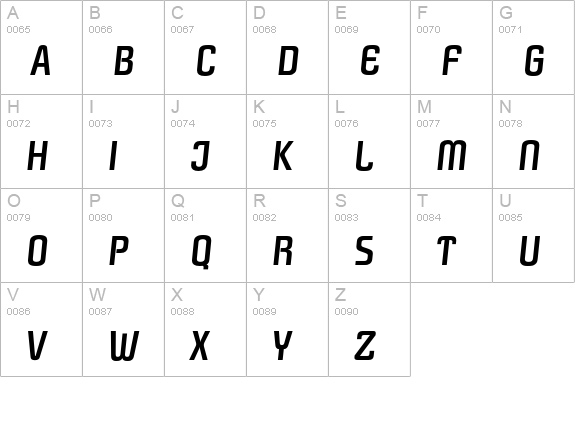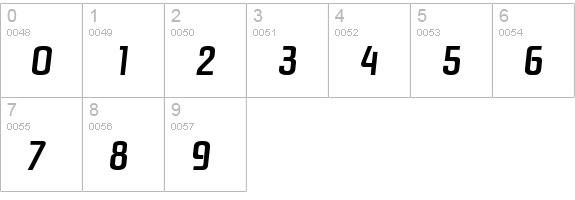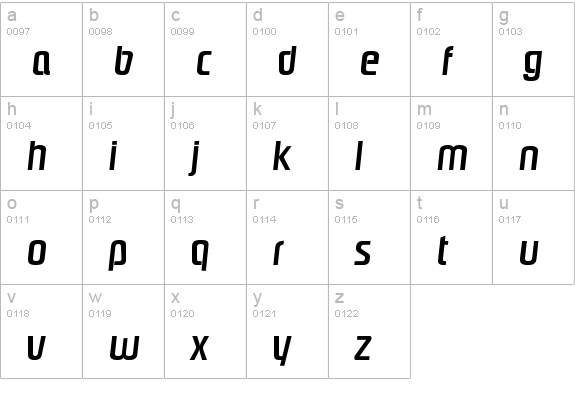
Introducing Pasadena-MediumIta, a captivating and versatile font that effortlessly combines elegance with a touch of modernity. This typeface is designed to captivate the reader's attention and elevate any design project to new heights. With its medium italic weight, Pasadena-MediumIta strikes the perfect balance between legibility and artistic flair, making it ideal for both headlines and body text. The smooth curves and graceful letterforms of Pasadena-MediumIta exude a sense of sophistication and refinement, making it suitable for a wide range of applications. Whether you're designing a logo, creating a poster, or crafting a magazine spread, this font will add a touch of class to your work. One of the standout features of Pasadena-MediumIta is its versatility. It seamlessly adapts to various design styles and themes, effortlessly enhancing the visual impact of any project. Its clean and crisp lines ensure readability, even at smaller sizes, while its elegant strokes add a subtle sense of character and personality. What makes Pasadena-MediumIta even more appealing is that it is freely available to download at FontsMarket.com. This means that you can easily incorporate this exceptional font into your designs without any hassle. Whether you're a professional designer or a student working on a personal project, the accessibility of Pasadena-MediumIta ensures that you can create stunning designs without breaking the bank. With its timeless appeal and effortless versatility, Pasadena-MediumIta is a font that deserves a place in every designer's toolkit. Its ability to effortlessly elevate any design project, combined with its availability for free download at FontsMarket.com, makes it an invaluable resource for both seasoned professionals and aspiring creatives. Take your designs to the next level with Pasadena-MediumIta and unlock a world of endless possibilities.